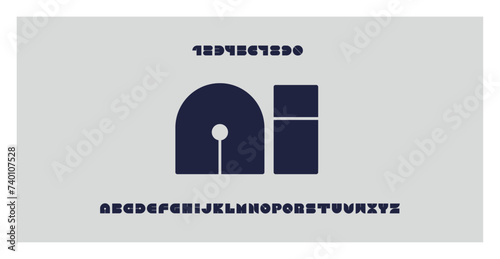
AI font. Future alphabet for headline, logo, technology, science, engineering. Minimal tech type, letters and numbers. Future digital circuit design. Artificial Intelligence concept. Vector typography